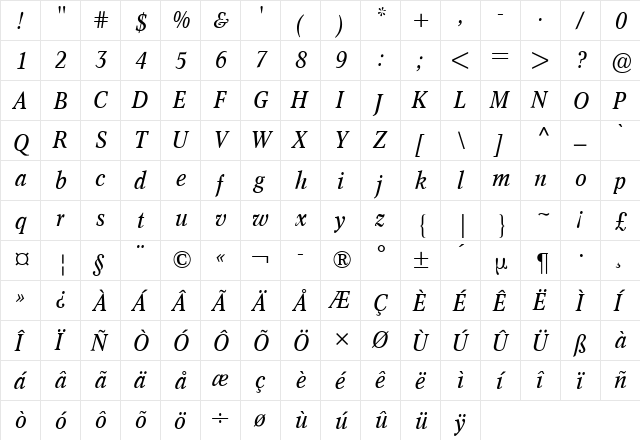
Concorde Nova BQ Italic Font Preview
Concorde Nova BQ Italic
Concorde Nova BQ Italic Font Details
Design Context for Concorde Nova BQ Typeface
Concorde Nova BQ takes a measured approach to typography — its balanced proportions and neutral character make it a reliable workhorse for both digital and print work. The dynamic lean of this cut emphasises speed and emphasis in any layout.
Pro Tip: Try Concorde Nova BQ for annotation and caption copy alongside an upright companion — the contrast in angle creates a dynamic but ordered typographic system.